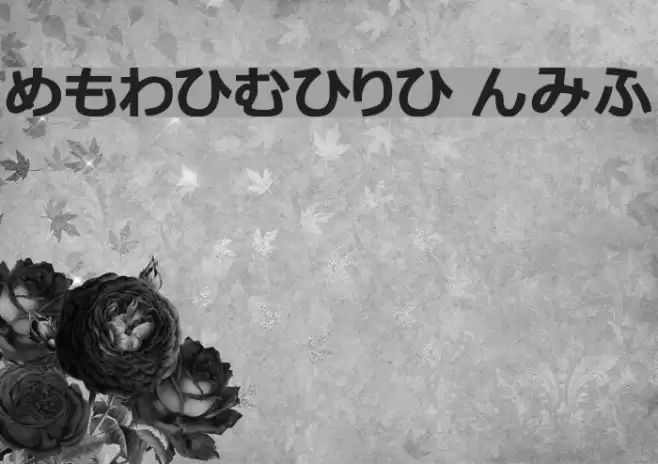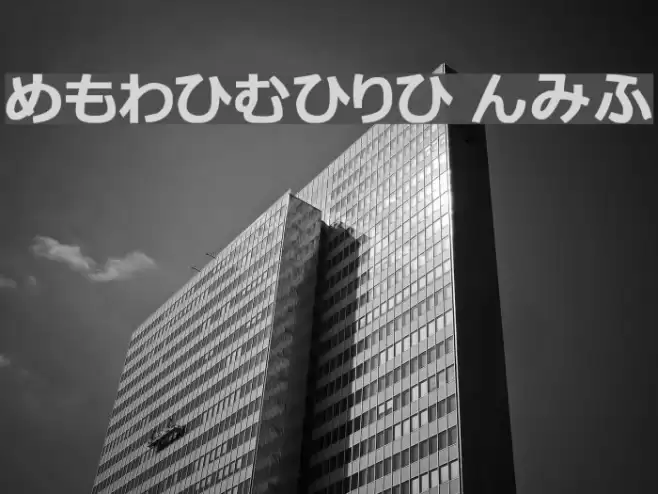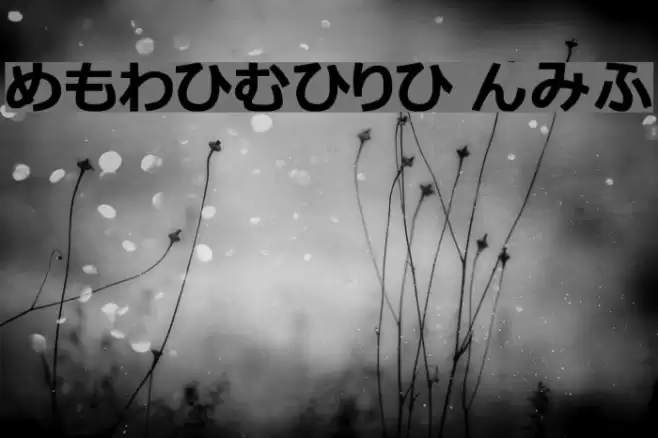
This font features the elegant and fluid characters of the Japanese Hiragana script. Each character is crafted with smooth, rounded strokes that convey a sense of traditional Japanese aesthetics. The characters are evenly spaced, providing a balanced and harmonious appearance. The font maintains a consistent stroke width, offering a clean and modern look while preserving the cultural essence of the Hiragana script. This style is ideal for projects that require an authentic Japanese touch, such as educational materials, cultural publications, or artistic designs.
A smooth, rounded Hiragana script font with a modern yet traditional feel from Asian fonts.
- Proposed Projects: Ideal for educational materials, cultural publications, artistic designs, and any project requiring an authentic Japanese aesthetic.
- Use Case: Logos, Artistic designs, Cultural publications